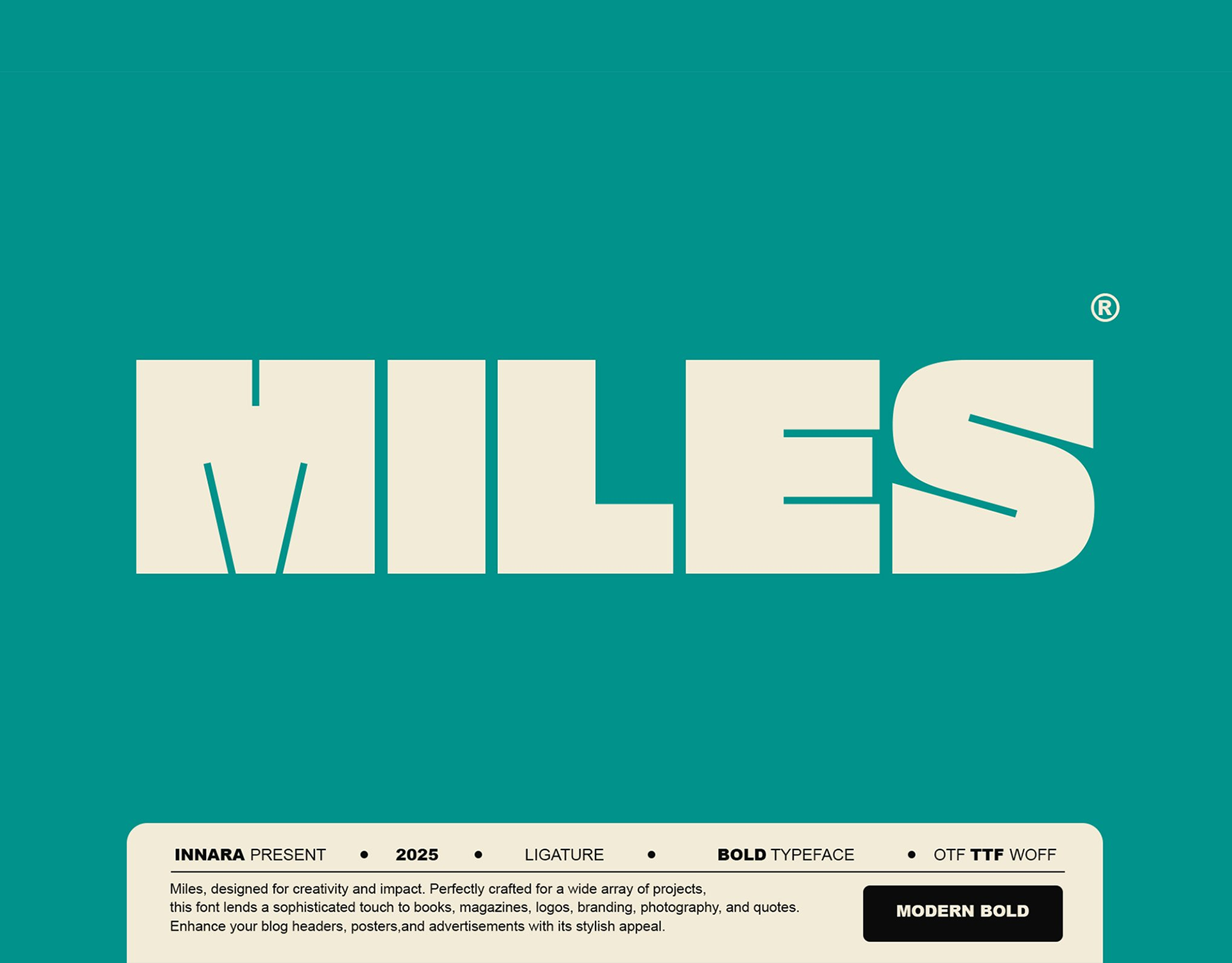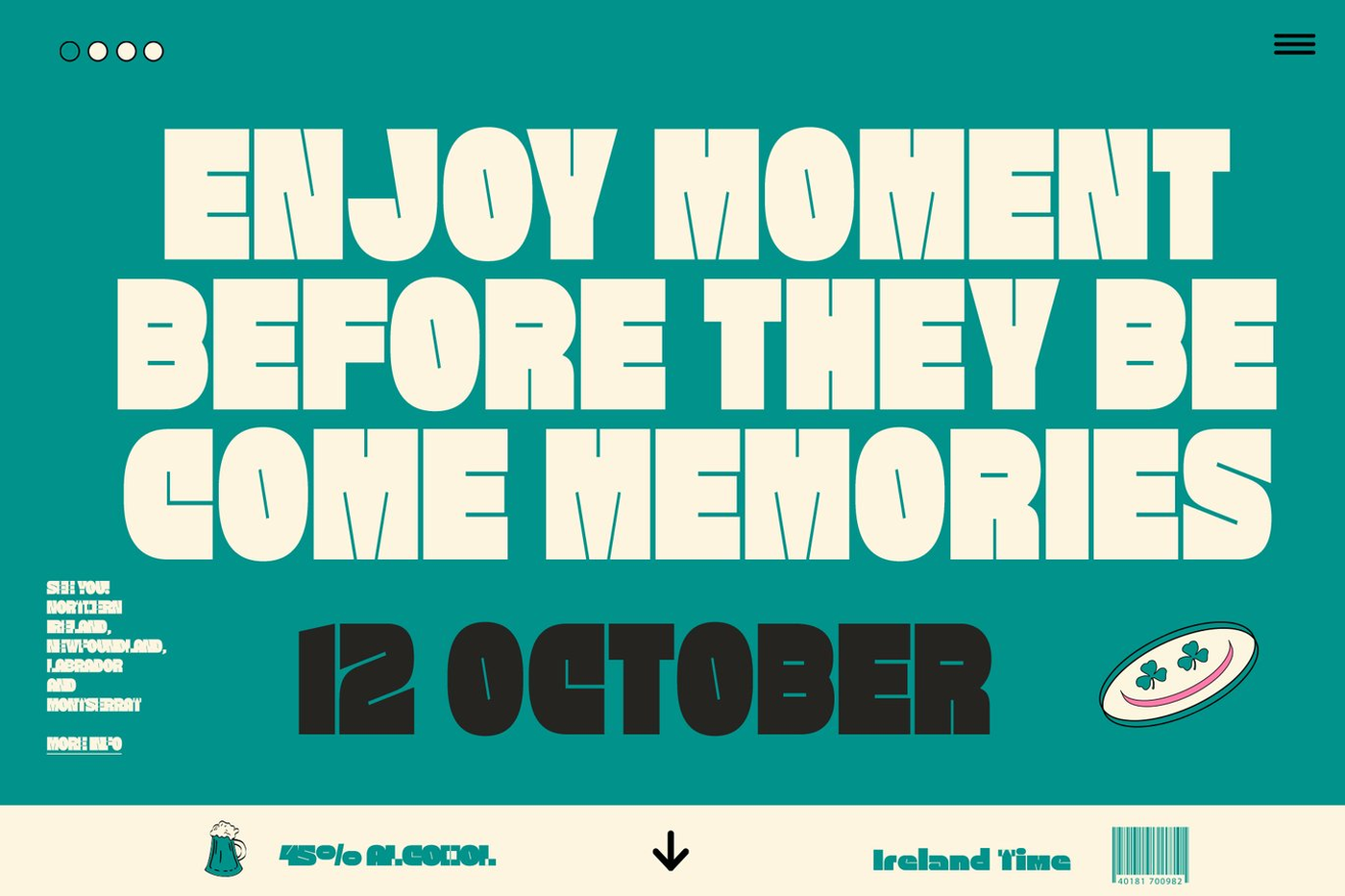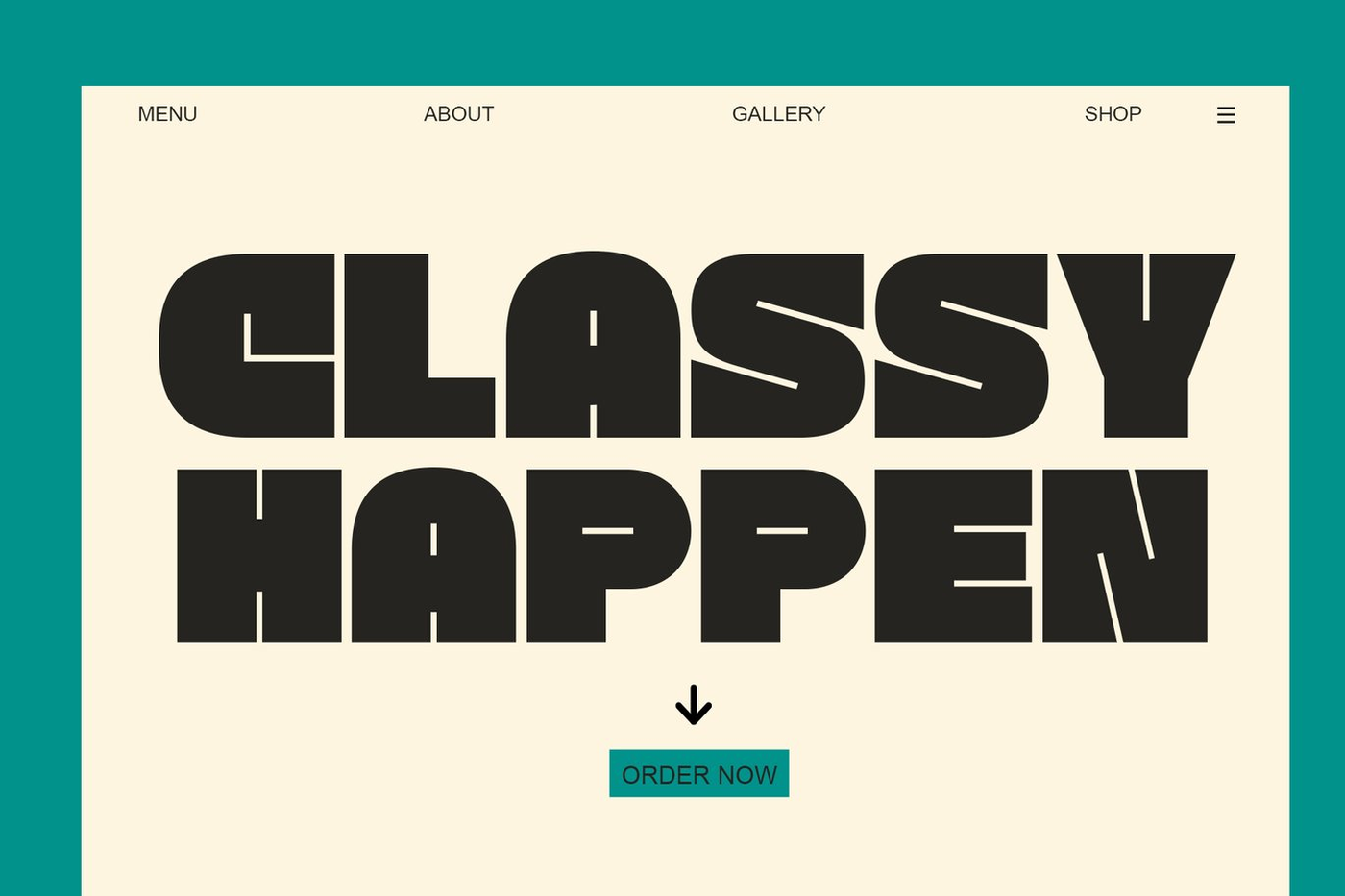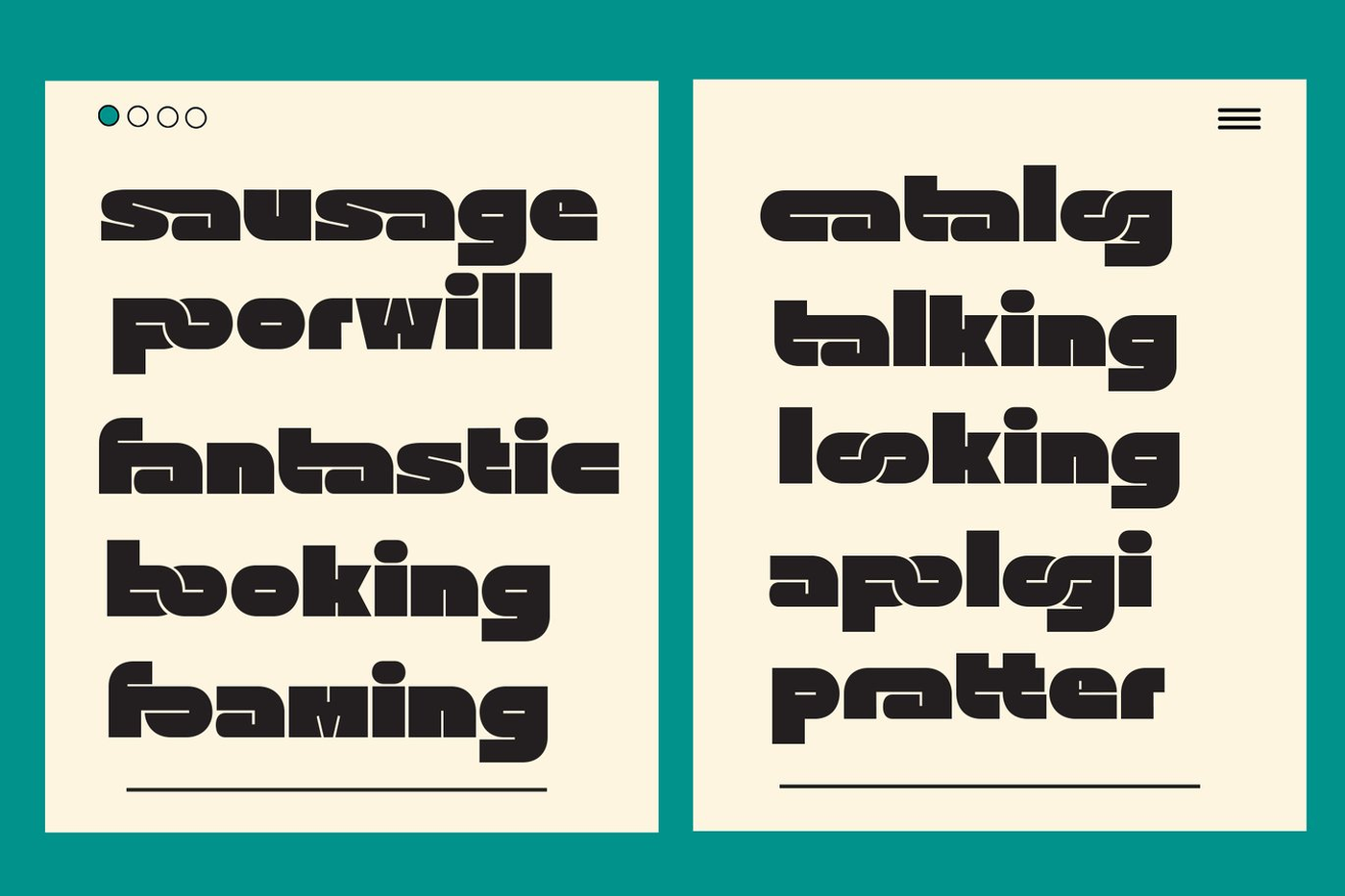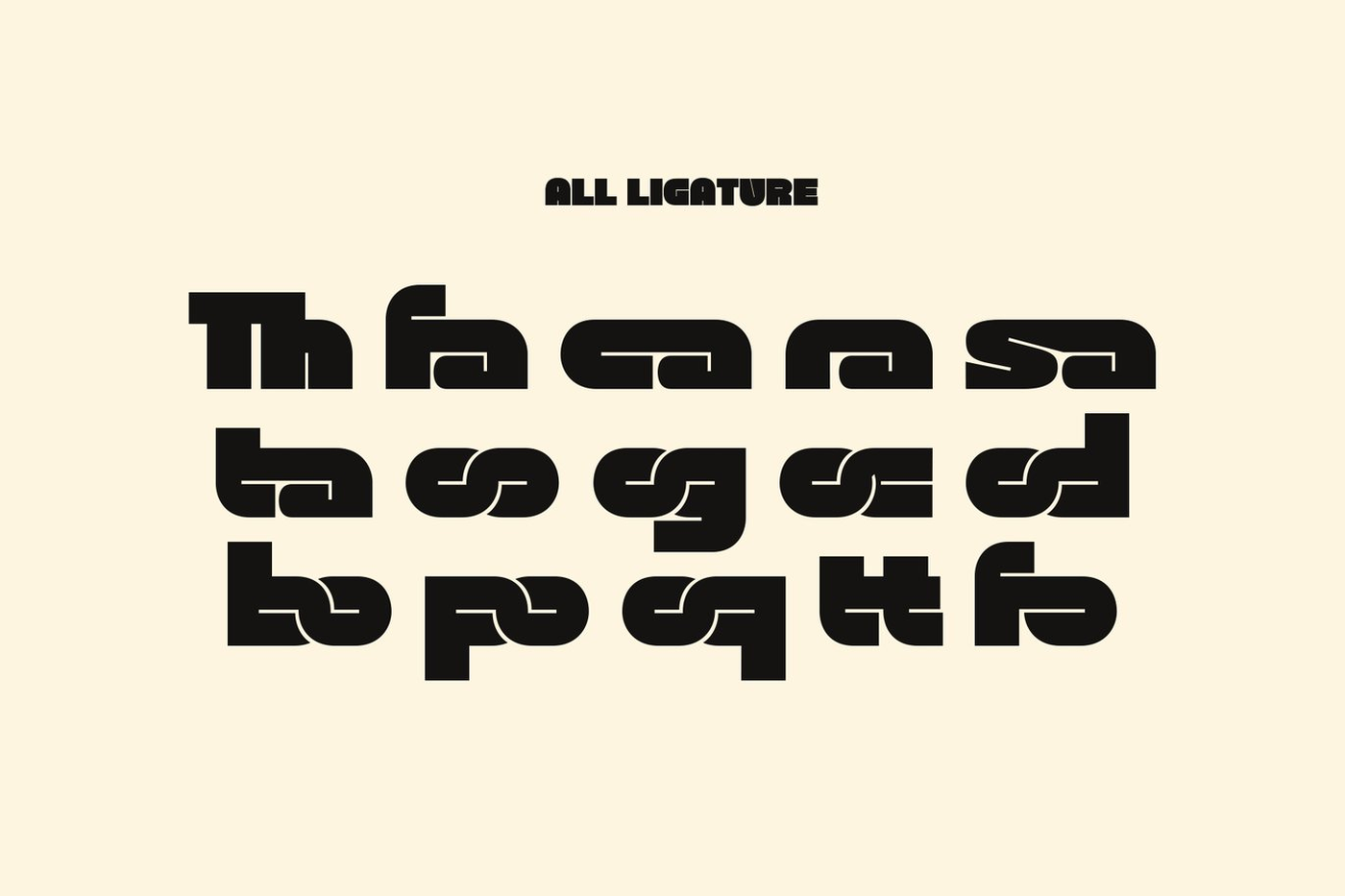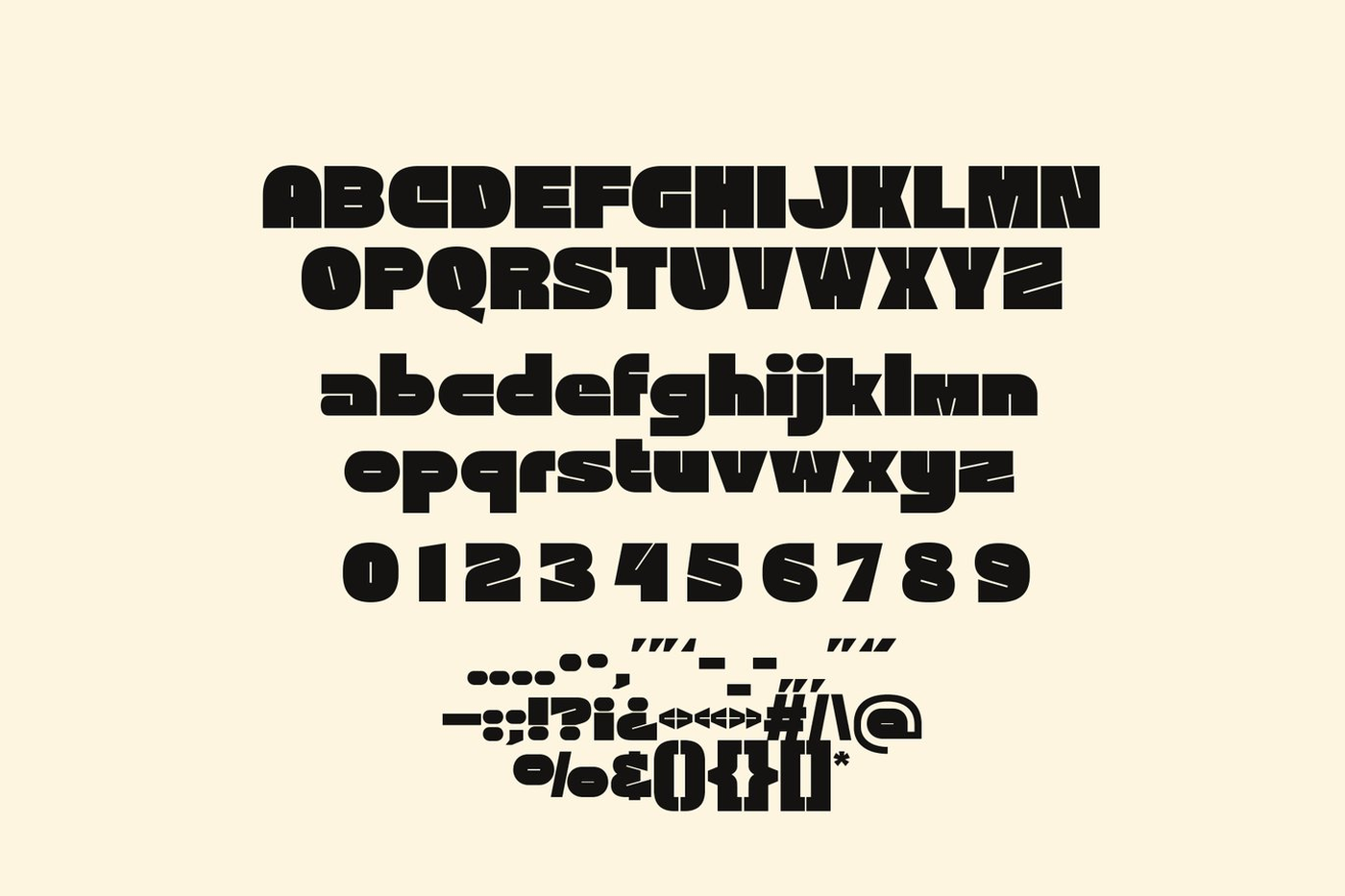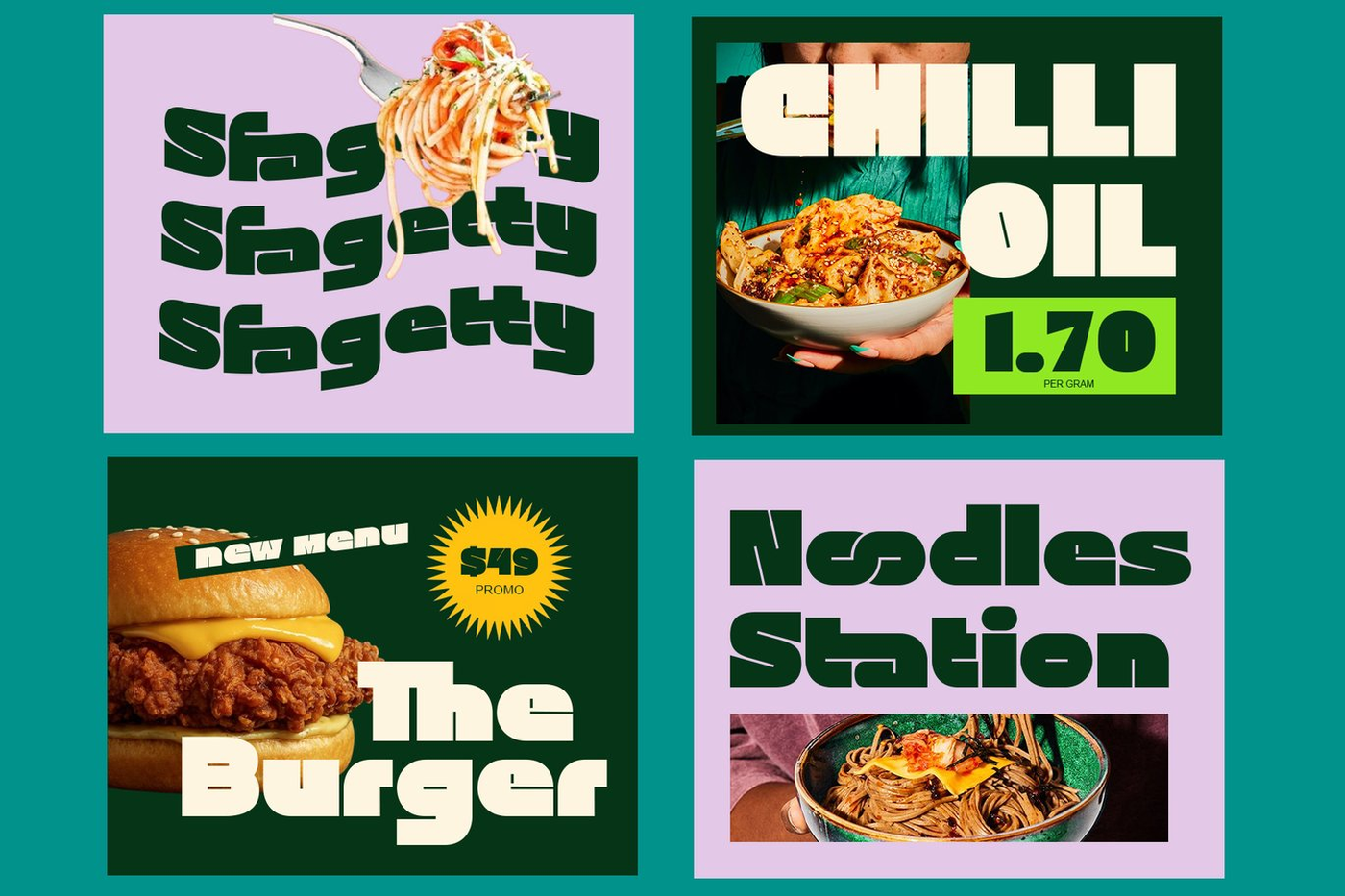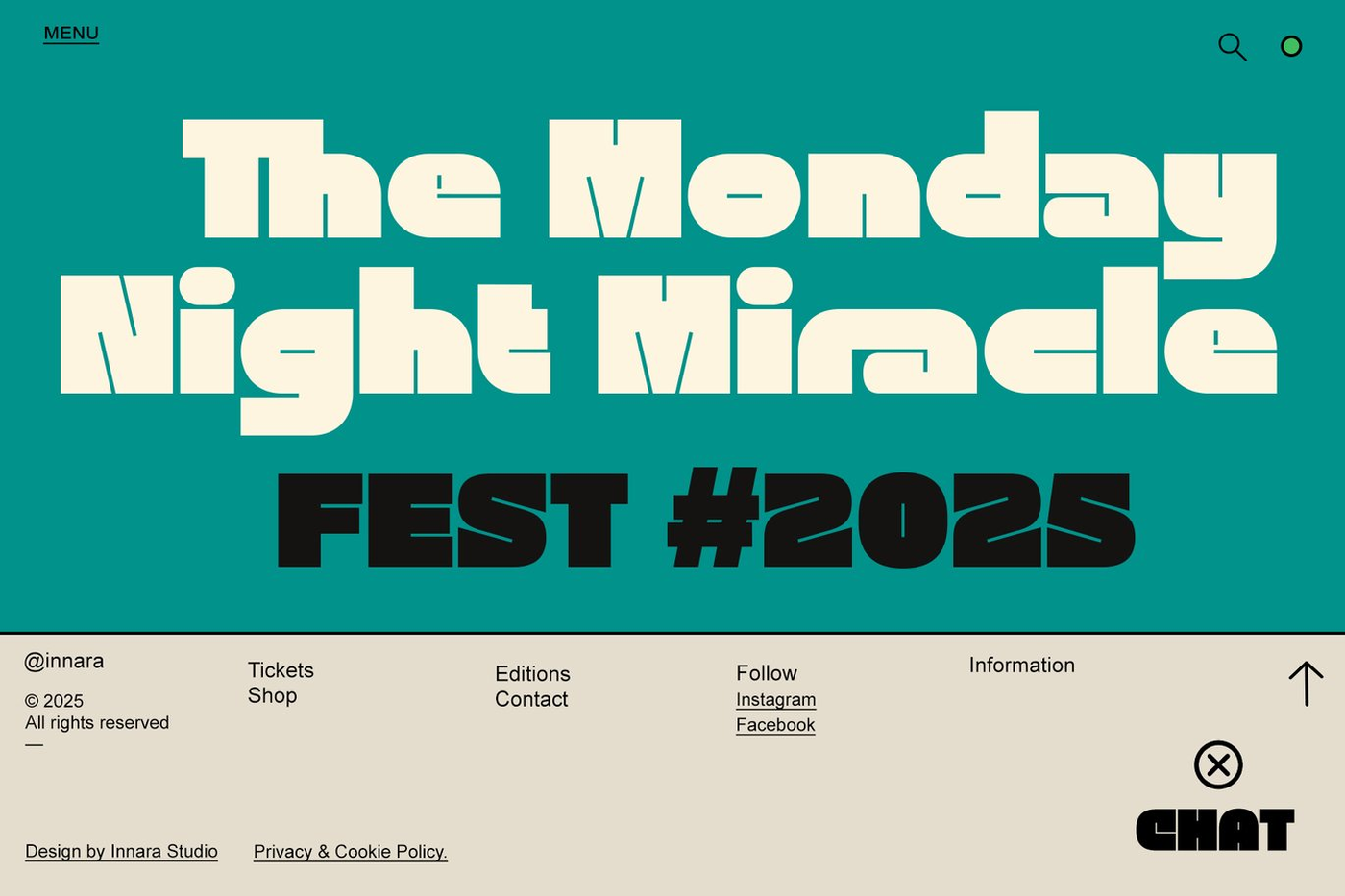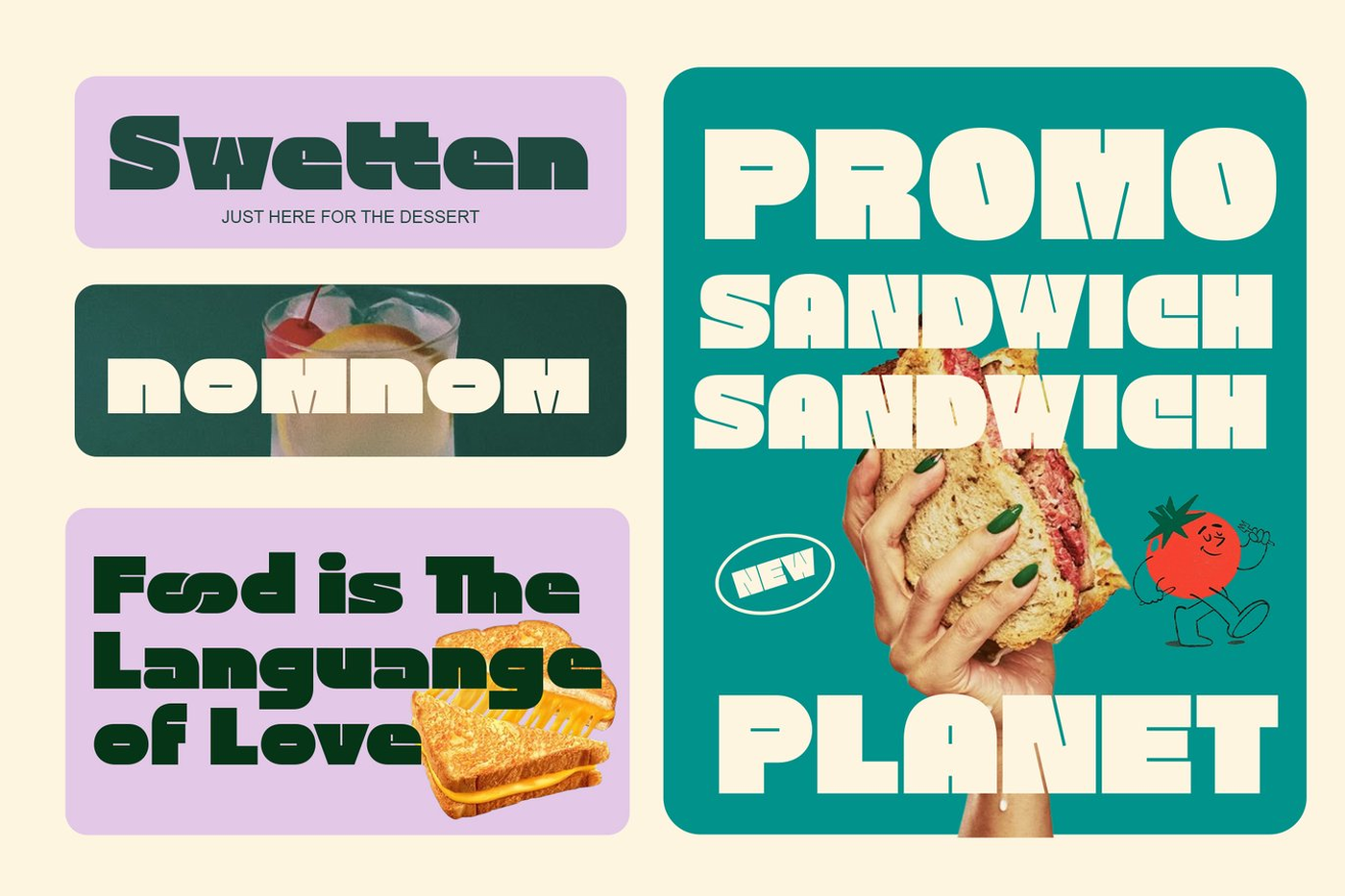
Miles - Bold Display Font
Miles is a typeface born to stand out. This Bold font is not merely a collection of letters; it’s a powerful, character-driven visual statement. If you’re yearning for a font that flawlessly blends classic, high-end aesthetics with an unmatched modern energy, Miles is the definitive choice. This typeface is designed with perfect precision; its heavy, sturdy forms guarantee instant visibility, while the distinctive, elegant curves provide a sophisticated touch that sets it apart from the crowd. Miles effectively communicates confidence, luxury, and daring, making it an essential investment for brands that demand respect and memorability.